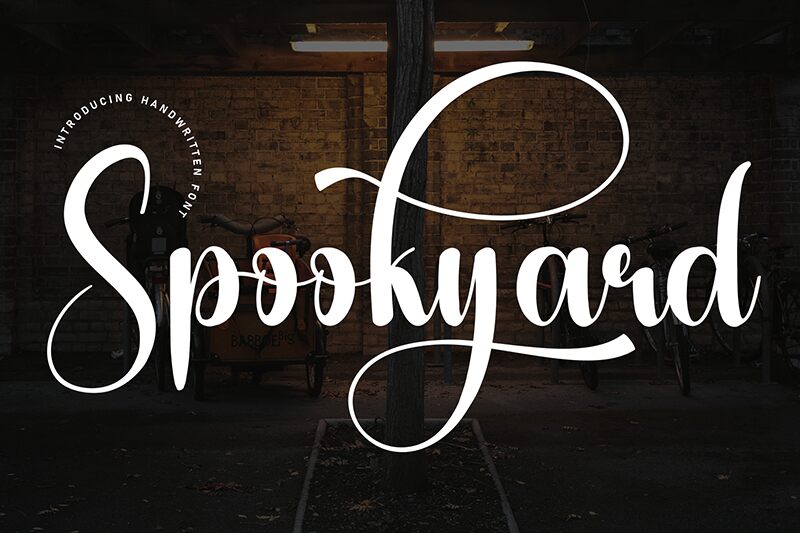
Spookyard
Spookyard font is a free handwritten font by Scratchones. This elegant decorative script features a whimsical style with artistic flair and vintage appeal. Its flowing curves are as smooth as handwriting done with the greatest attention to detail, bringing an all-in-all dashing appearance.
A free choice of quality that rarely happen, this wonderful typeface is here for effortless invitations, posters, greeting cards or wedding design needs. Spookyard will also stand out in magazines, storybooks, packaging designs, printables and branding projects for businesses related to art. It also suits logos and blog header titles along many more temptations of stylish branding possibilities!